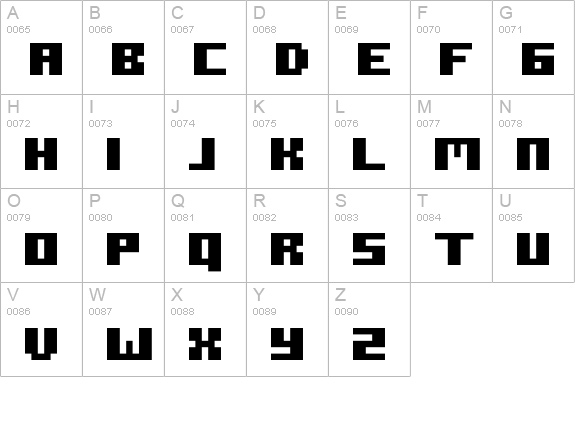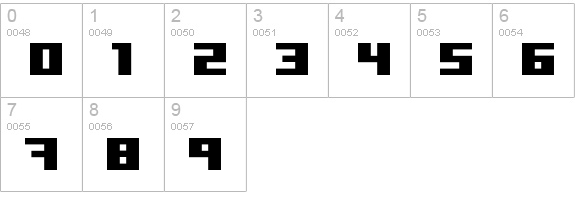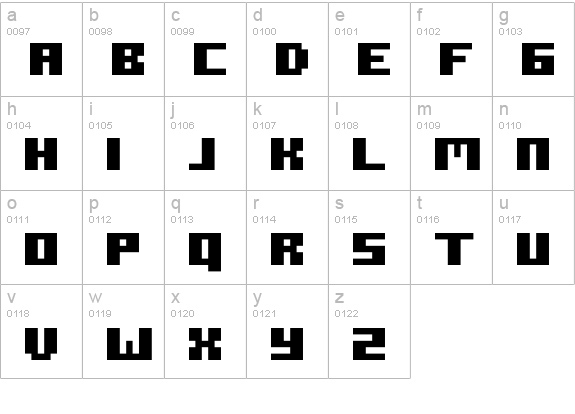
ROTORkeff-Bold Font Details
ROTORkeff-Bold is a strong, high-contrast variant in the ROTORkeff typeface family \xE2\x80\x94 well suited to headlines, attention-grabbing titles, and strong calls-to-action.
Introducing ROTORkeff-Bold font, a bold and dynamic typeface that commands attention with its strong presence and modern aesthetic. This font exudes confidence and sophistication, making it perfect for headlines, titles, logos, and other design projects that require a bold statement. ROTORkeff-Bold is a versatile font that combines sleek lines and sharp angles to create a contemporary look that is both powerful and stylish. Its bold weight ensures maximum impact while maintaining clarity and readability across various applications. What's even better is that ROTORkeff-Bold is available for free download at FontsMarket.com, making it easily accessible for designers, creatives, and anyone looking to add a touch of boldness to their projects. Don't miss out on this opportunity to elevate your designs with the striking ROTORkeff-Bold font.